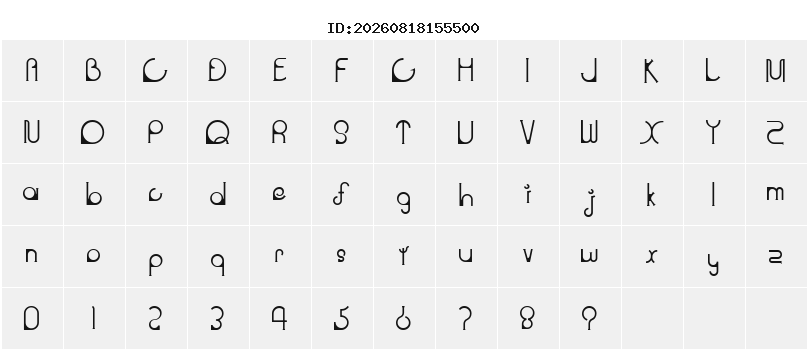
Slide Preview
• Font Name: Slide
• Full Font Name: Slide
About Slide.ttf
Slide.ttf is a modern, elegant sans-serif font designed for ultimate readability and visual harmony. Perfect for branding, headlines, web design, and print materials.